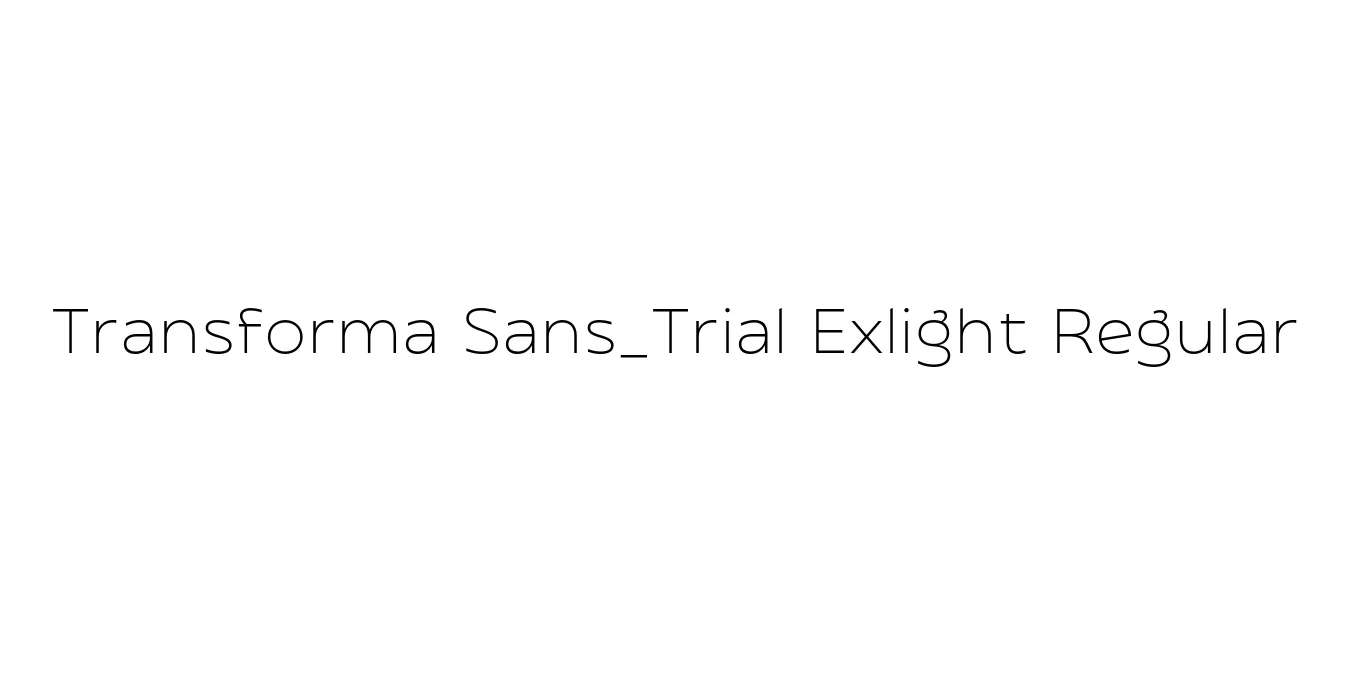
Transforma Sans_Trial Exlight Regular
Designed by Riccardo Olocco
Transforma Sans is a sophisticated typeface system designed by Riccardo Olocco and released through the Cast foundry. The project was developed with a unique vision to create a stylistic bridge between different typographic genres, specifically pairing a structured sans-serif with a complementary script variant. The Exlight weight represents the most delicate end of the spectrum, showcasing razor-thin strokes and a geometric clarity that feels both modern and timeless.
The Trial Exlight Regular variant is specifically engineered for high-end design environments where elegance and minimalism are paramount. Its wide apertures and balanced proportions ensure that the typeface remains legible even at thin stroke weights, making it a favorite for luxury branding, editorial headlines, and refined user interfaces. It serves as a testament to contemporary Swiss-style design, focusing on functional purity and aesthetic grace.
Transforma Sans_Trial Exlight Regular Best Uses
Perfect for high-end magazine headings and delicate pull-quotes in fashion or art journals.
Ideal for luxury brand identities that require a clean, sophisticated, and premium visual tone.
Excellent for hero headers and minimalist website titles where whitespace is a key design element.
Works beautifully on minimalist product packaging for cosmetics or high-tech devices.